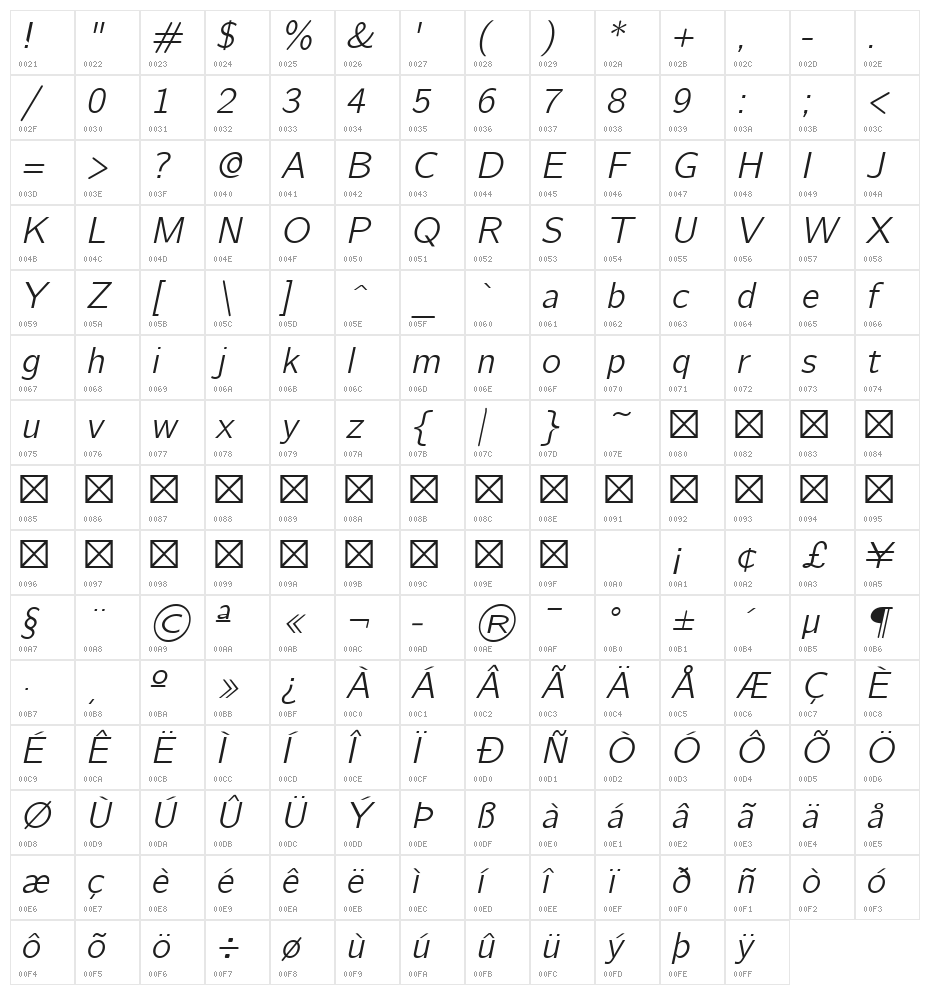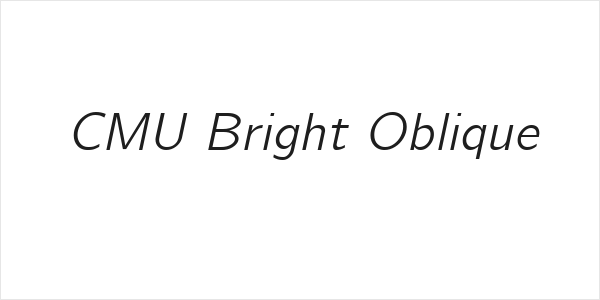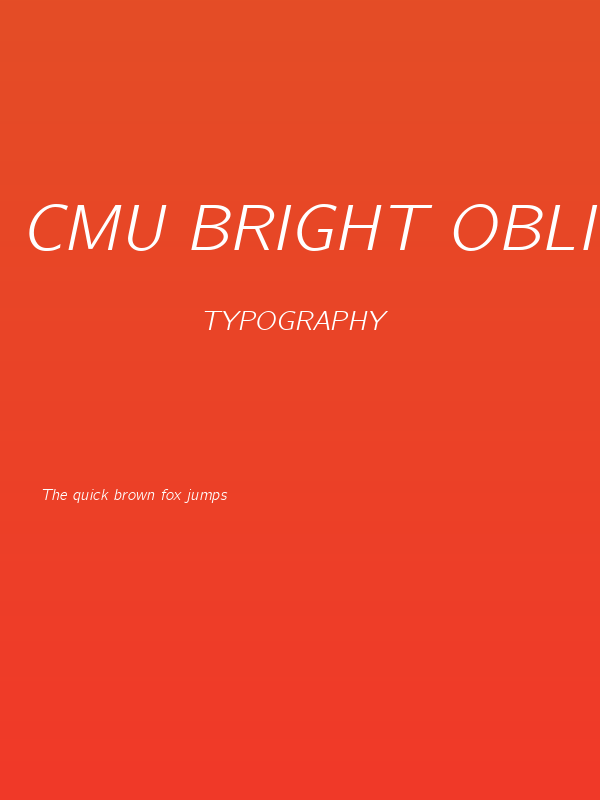
CMU Bright Oblique Font
CMU Bright Oblique Description
This font exhibits a sleek and modern design with a subtle oblique slant, giving it a dynamic and forward-moving appearance. The characters are crafted with clean lines and a uniform stroke width, contributing to a sense of clarity and precision. The uppercase letters are slightly taller than average, enhancing readability, while the lowercase letters maintain a consistent height, ensuring a harmonious flow. The numerals are proportionate and align well with the overall style, making them suitable for both text and numerical data. Special characters are distinct and well-defined, adding versatility to the font's application.